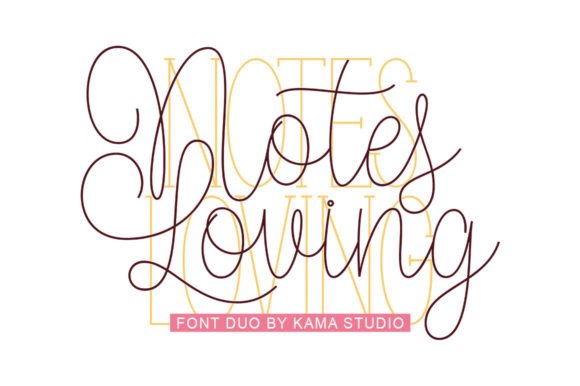
Introducing the Notes Loving Font, a sensational script font that will take your designs to the next level! Created by the talented Kama Studio, this font is specifically designed for beauty brands, making it the perfect choice for all your creative endeavors.
With its sweet and fun duo of fonts, Notes Loving adds a touch of loveliness and sweetness overload to any project. Whether you're creating a stunning wedding invitation, celebrating Valentine's Day, designing a captivating logo, or building a strong brand identity, this font has got you covered.
One of the most remarkable features of Notes Loving is its versatility. It seamlessly adapts to any design style, giving you the freedom to express your creativity without limitations. Its elegant and flowing script will captivate your audience, leaving a lasting impression.
Imagine the impact of using Notes Loving on your social media posts. Your content will instantly stand out, grabbing the attention of your followers and sparking their curiosity. With this font, your brand will exude sophistication and charm, setting you apart from the competition.
Looking to add a special touch to your stickers? Notes Loving is the answer. Its playful yet refined aesthetic will make your stickers irresistible, making people want to stick them everywhere they go. Get ready for your brand to become the talk of the town!
But the magic of Notes Loving doesn't stop there. Its versatility extends to various mediums, from print to digital, ensuring that your message is consistently conveyed across all platforms. This font is a game-changer for your marketing materials, giving your brand a cohesive and professional look.